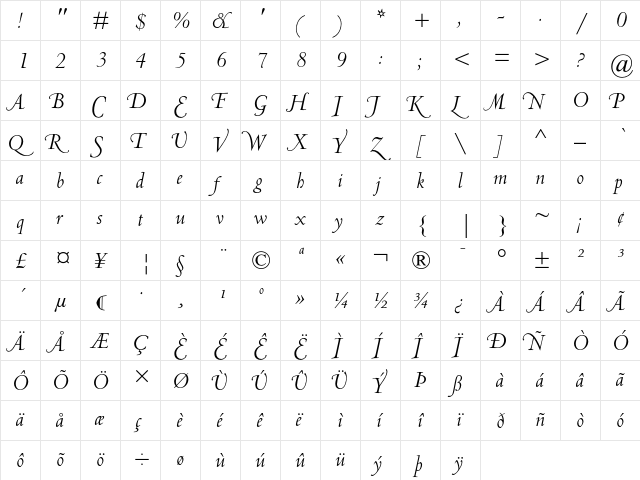
Centaur MT Swash Capitals Font Preview
Centaur MT Swash Capitals
Centaur MT Swash Capitals Font Details
| Style | Swash Capitals |
Design Context for Centaur MT Typeface
Centaur MT brings a calligraphic fluidity to the page — its connecting strokes and expressive curves give it an unmistakably human quality.